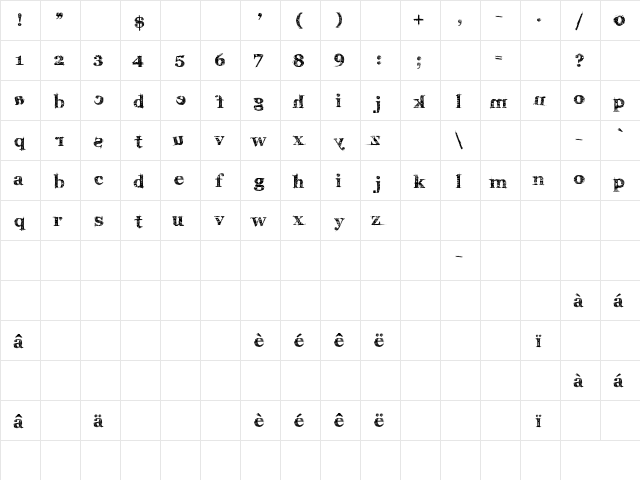
karabinE. Regular
| Designer | Jonathan Paquette |
Design Context for karabinE. Typeface
karabinE. is a composed and adaptable typeface that performs quietly and consistently across a wide range of design contexts.